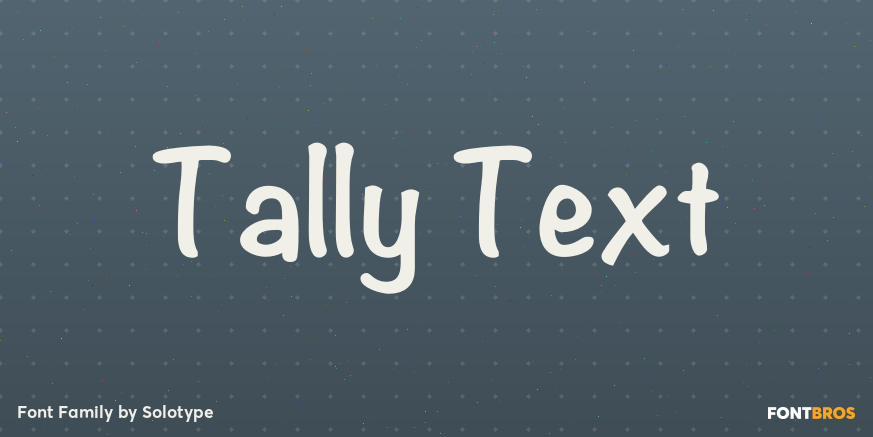
About Tally Text
Tally Text Light is an early photolettering type, sometime in the 1940s, when words were hand assembled from individual film positives of the letters, then re-photographed. We made the bold face version of Tally Text Light by optical trickery long before…